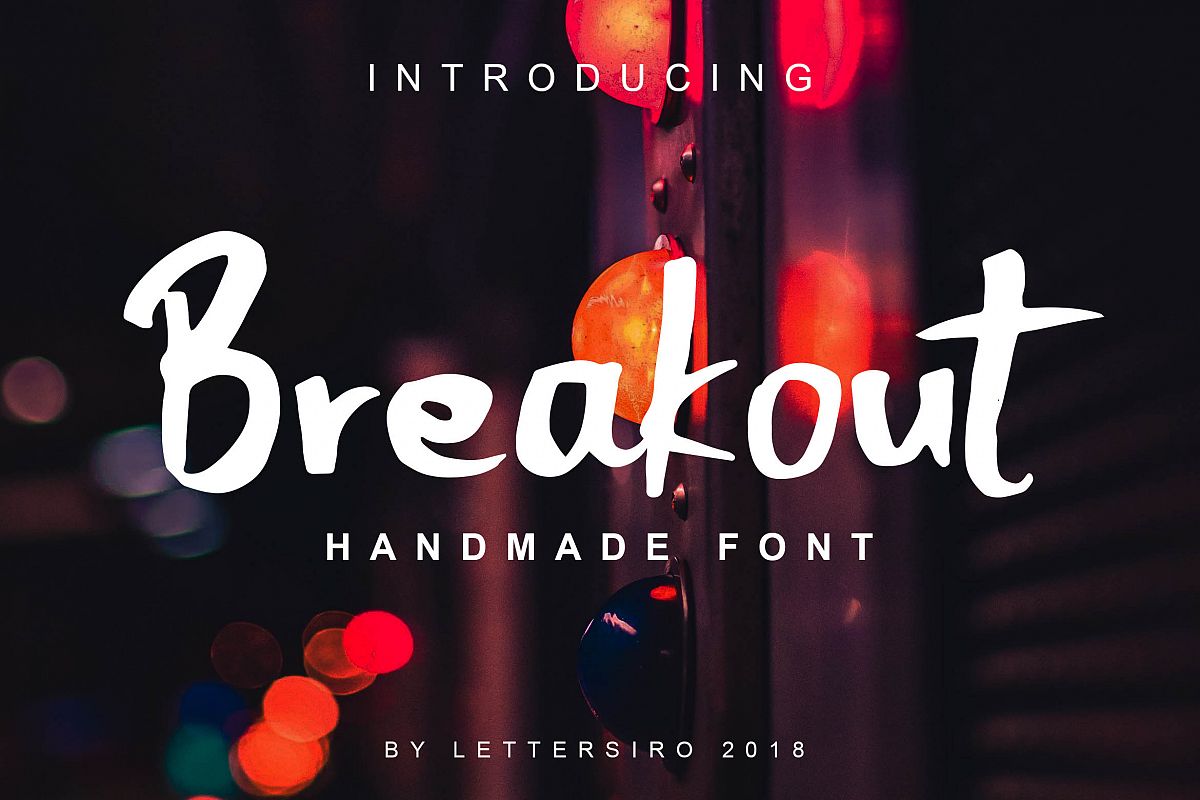
Breakout Natural Font
we just now launch our newest product called Breakout Font. This font is very suitable for logo, clothing, magazine, poster, quotes, and others.
With natural touch, this font is the best choice for you.
- Ligature